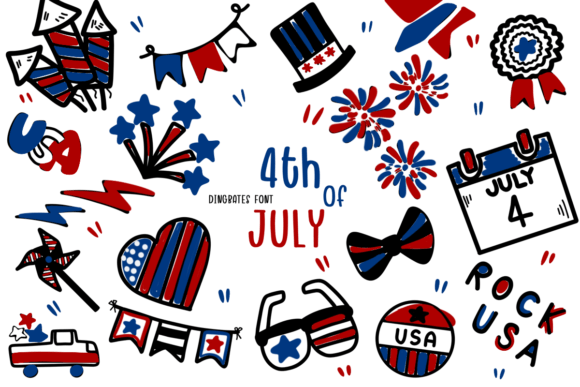
Introducing the Star-Spangled 4th of July Font: Elevate Your Designs with Patriotism and Style
Ah, the 4th of July – a time for fireworks, backyard barbecues, and, for us designers, a chance to add some star-spangled flair to our creative projects. I still remember the time I was working on a wedding invitation design for a client’s summer-themed party. The bride and groom wanted something festive, yet elegant. As I scrolled through my font library, I realized I was missing that perfect, patriotic touch. That’s when I wished for a font that could capture the essence of Independence Day celebrations – a font like “4th of July.”
Meet the 4th of July Font
The “4th of July” font is a dingbats font with a unique sketch style that brings life to your designs. Its audacious design makes your ideas go from ordinary to extraordinary, perfect for wedding invites, DIY crafts, decorative projects, and logos. With this font, you can imbue your creative canvas with an enchanting essence that makes your designs tell a story that stands out.
Here’s what I love about the “4th of July” font:
• ✨ Unique sketch style that’s both elegant and playful
• ✅ Extensive glyphs and OpenType features for versatile design options
• 🎉 Perfect for DIY projects, crafting, and small business branding
• 💻 Works seamlessly across various design platforms
And, like any font, it has a few quirks:
• 🤔 Some characters might require manual kerning for optimal spacing
• ⚠️ Limited multilingual support, mainly focused on English and Western languages
The Designer Inspiration Behind 4th of July
The “4th of July” font was inspired by the classic American celebrations and the desire to create a font that embodies freedom, joy, and patriotism. The designer aimed to craft a font that not only looks festive but also tells a story of tradition and celebration through its unique sketch style.
What makes the “4th of July” font unique? The “4th of July” font features a unique sketch style that gives it a distinctive, hand-drawn feel, perfect for adding a personal touch to designs.
Is the “4th of July” font suitable for body text? While it’s primarily designed for display and decorative purposes, it can be used for short body text passages where a festive tone is desired.
With the “4th of July” font, your designs are sure to stand out, filled with the spirit of celebration and patriotism. Whether you’re a designer, crafter, or creative hobbyist, this font is a fantastic addition to your toolkit.